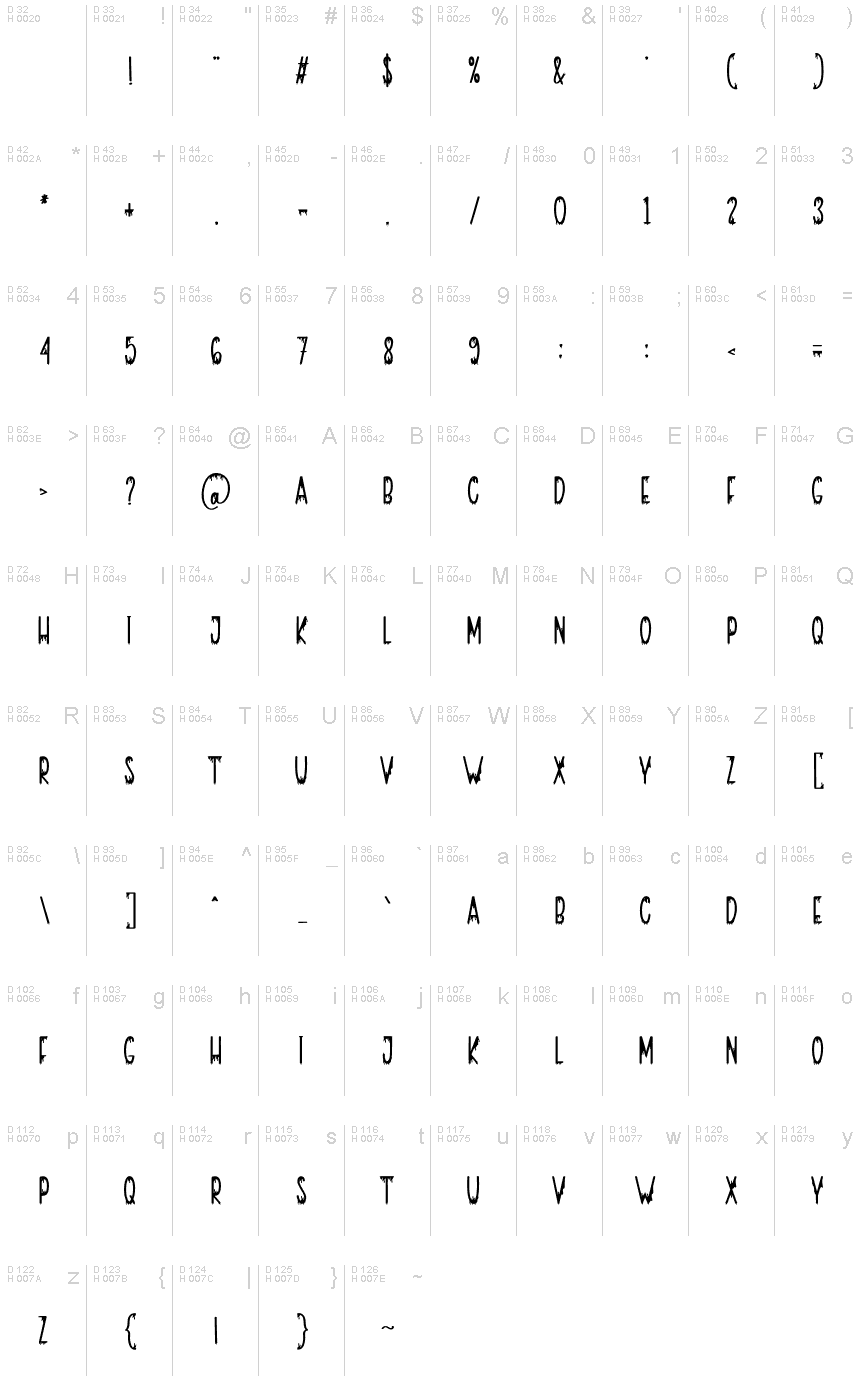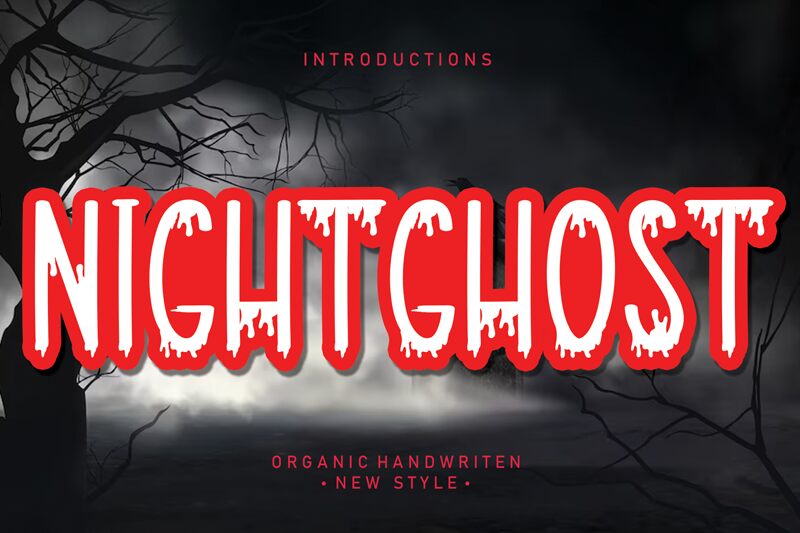
Nightghost
Nightghost, a spine-chilling creation by Scratchones, is a display font that will send shivers down your spine. With its semi-light weight and extra-condensed width, this font is perfect for spooky projects that demand attention. Its scary and Halloween-inspired style brings an eerie atmosphere to any design. The all caps block letters add a boldness that commands the darkness.
Whether it's for haunted house flyers, horror movie posters, or Halloween-themed websites, Nightghost is the font that will give your project an unforgettable touch of terror.